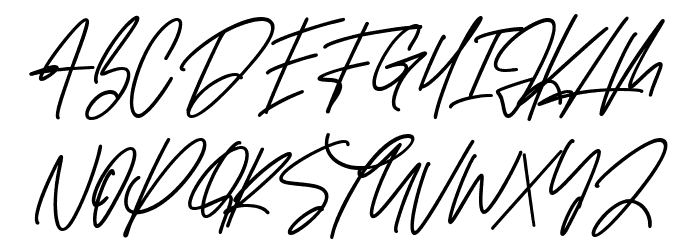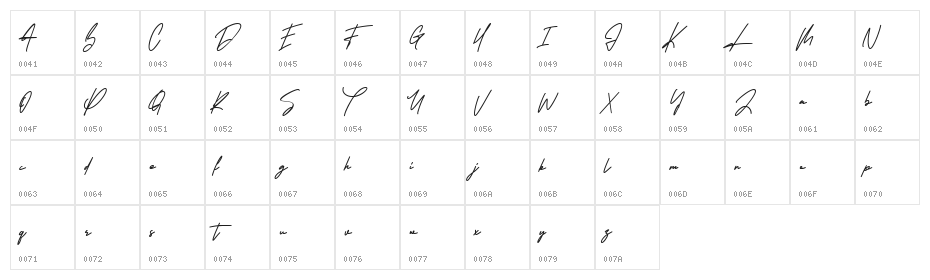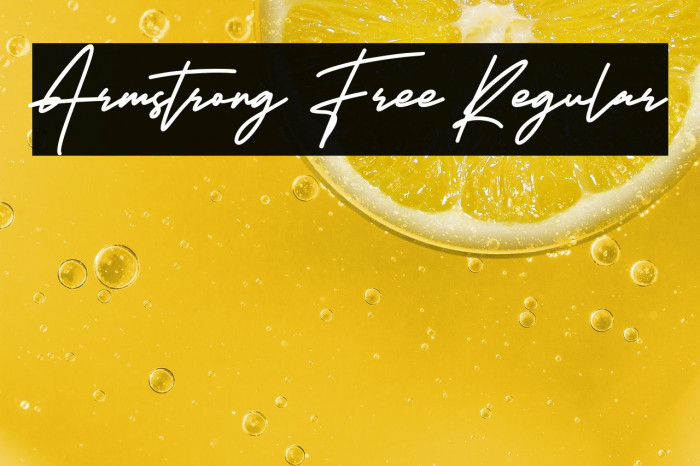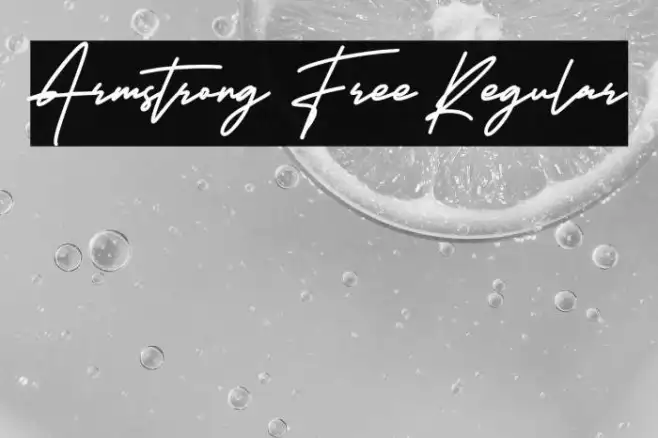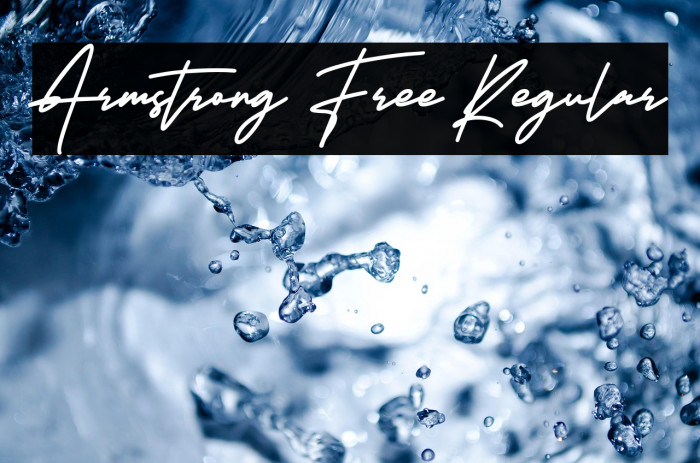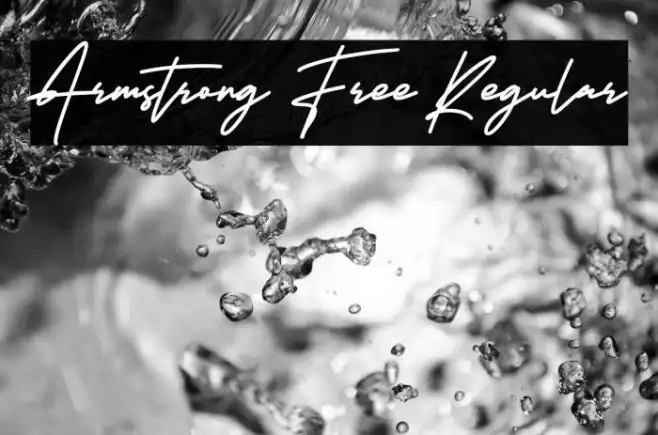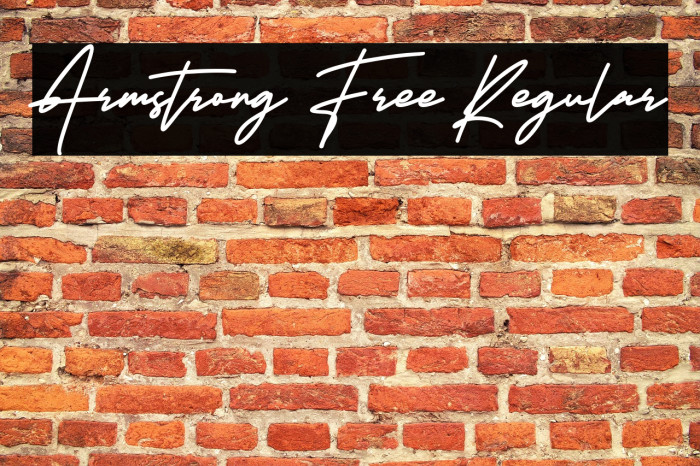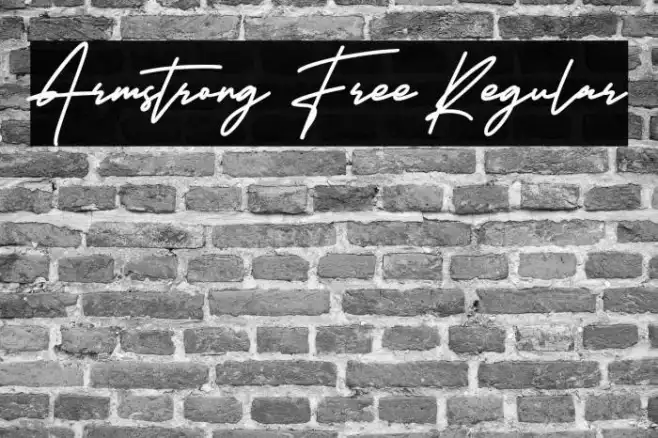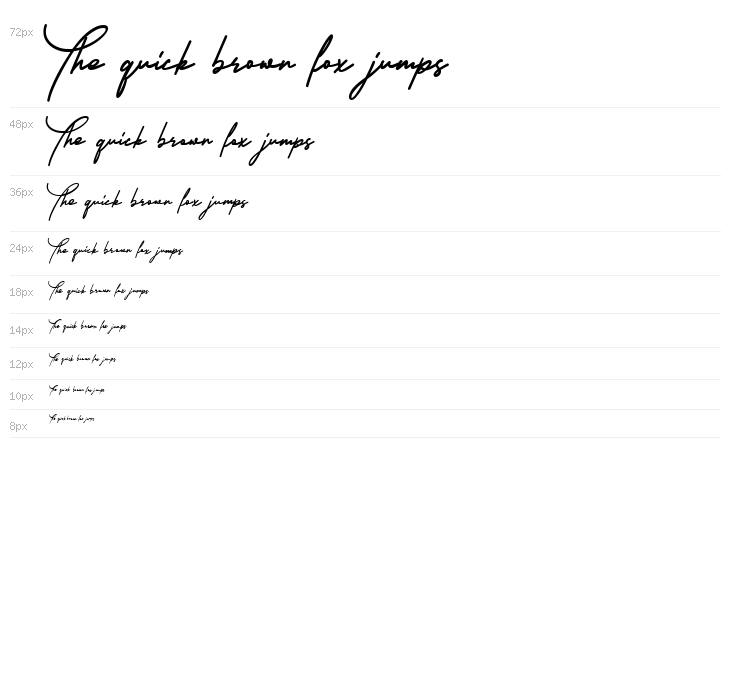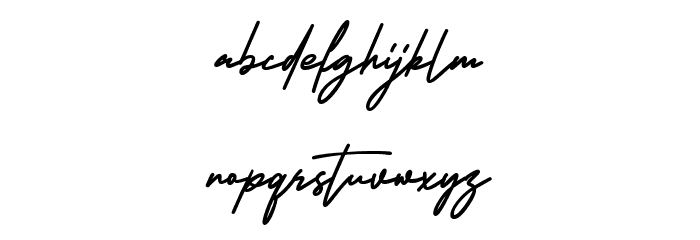
Armstrong Free Regular Font
Armstrong Free Regular Description
This font exudes a dynamic and energetic vibe with its handwritten style, characterized by fluid, sweeping strokes that mimic natural handwriting. The letters are slightly slanted, adding a sense of motion and casual elegance. The uppercase letters are bold and expressive, while the lowercase letters maintain a consistent flow, enhancing readability. The overall appearance is both artistic and approachable, making it suitable for creative projects that require a personal touch. The font's unique character is further emphasized by its varying line thickness, which adds depth and interest.
| Proposed Projects | Ideal for branding, invitations, greeting cards, and social media graphics. |